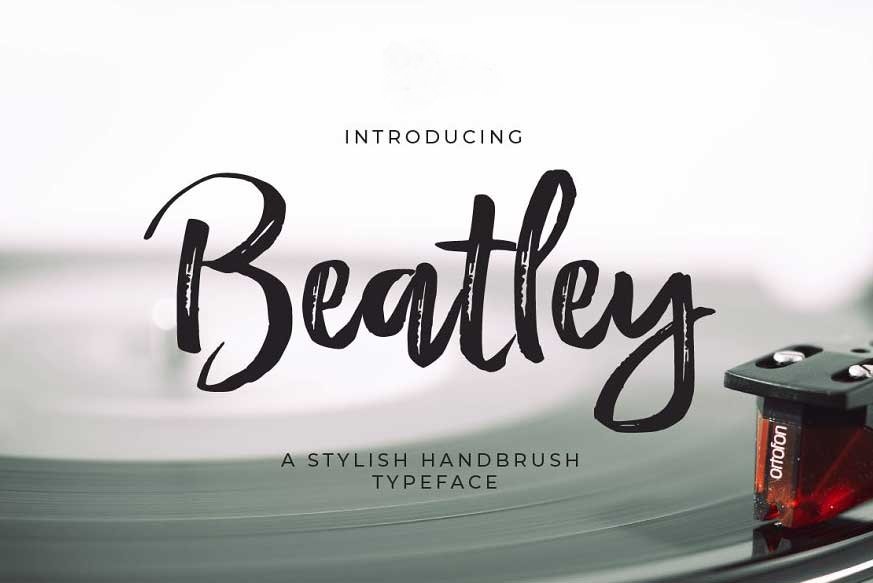
Beatley Stylish Hand Brush Font
Debut Studio presents the latest font Beatley Handbrush.
This font is perfect for design purposes such as logo design, t-shirt, heading, magazine, newspaper, website, to design quotations, posters, business cards, and others.